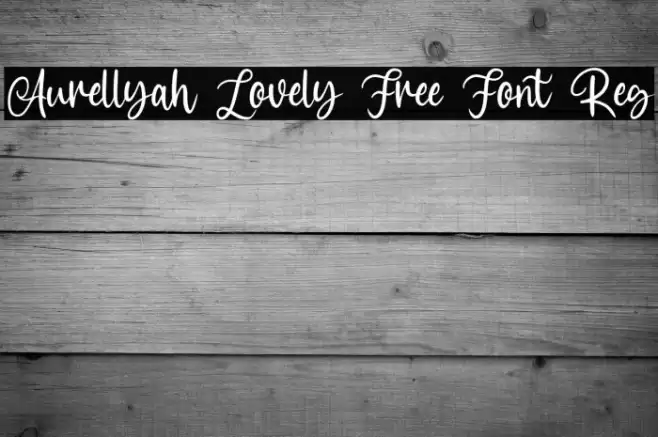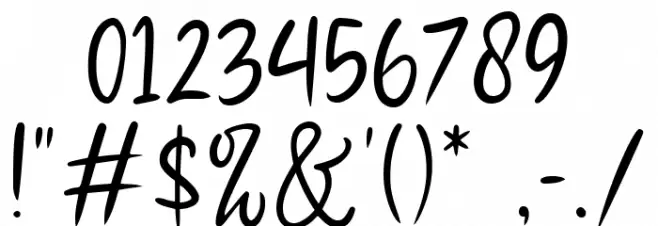
Aurellyah Lovely Free Font Reg Font
Aurellyah Lovely Free Font Reg Description
This font features a charming and flowing script style that exudes elegance and personality. The uppercase letters are gracefully connected, with a consistent slant that adds a sense of movement and fluidity. The lowercase letters maintain a cohesive look, with loops and curves that enhance its handwritten appeal. The numerals are bold and clear, ensuring readability while maintaining the overall aesthetic. Special characters are thoughtfully designed to match the playful yet sophisticated style, making this font versatile for various creative projects.
A charming, flowing script font with elegant, connected letters from Regular fonts.